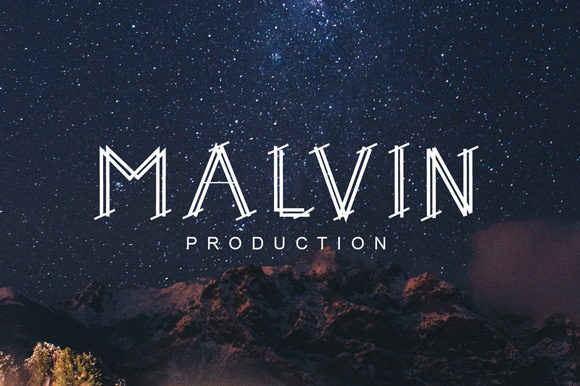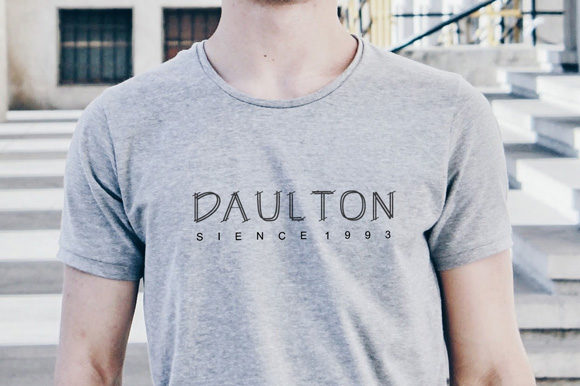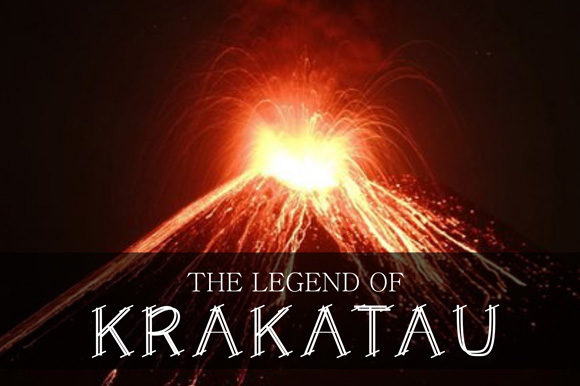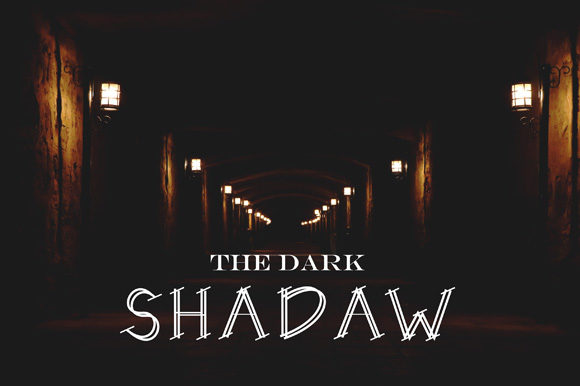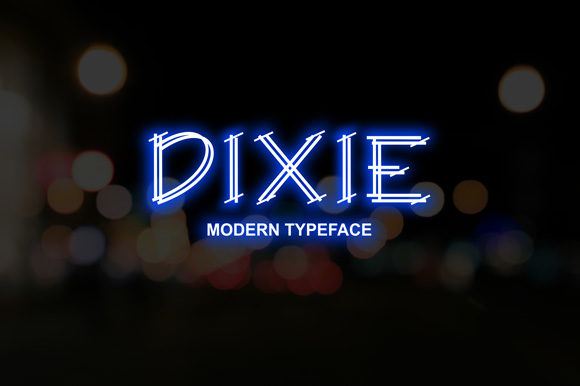
Dixie Font: Elevate Your Designs with Elegant Simplicity
In the world of typography, few fonts manage to strike a balance between simplicity and elegance. Dixie Font, however, achieves this delicate balance with remarkable finesse. Inspired by hand-lettering, Dixie is a simple, yet elegant display font that exudes a bold feel, making it an excellent choice for designers and crafters looking to add a touch of sophistication to their projects.
The Charm of Hand-Lettering Inspiration
Dixie Font draws its inspiration from the art of hand-lettering, a technique that has been cherished for centuries for its personal touch and unique character. Hand-lettering is an art form that requires skill, patience, and a keen eye for detail. By emulating this style, Dixie Font brings a level of authenticity and warmth to any design it is applied to. The font’s elegant lines and curves are reminiscent of handwritten letters, making it perfect for projects that require a personal and intimate feel.
Simple yet Elegant Design
One of the standout features of Dixie Font is its simplicity. Unlike more ornate fonts that can overwhelm a design, Dixie strikes a perfect balance between being straightforward and stylish. Its clean lines and elegant curves make it versatile enough to be used in a variety of contexts, from branding and advertising to packaging and digital media. The simplicity of Dixie Font also ensures that it remains legible even at larger sizes, making it an excellent choice for headlines and titles.
A Bold Feel for Impactful Designs
Despite its elegant appearance, Dixie Font is not afraid to make a statement. It possesses a bold feel that can add impact and drama to any design. This boldness is not overpowering but rather enhances the overall aesthetic, making it perfect for designers who want to create striking visuals. Whether you’re working on a logo, a poster, or a website header, Dixie Font can help you grab attention and leave a lasting impression.
Authentic Elegance for Various Projects
The authentic elegance of Dixie Font makes it suitable for a wide range of projects. For crafters, it can add a touch of sophistication to handmade cards, scrapbooking, and other paper crafts. Designers can use it to elevate their branding projects, create stunning advertisements, or design beautiful websites. The font’s versatility and timeless elegance ensure that it will remain a valuable asset in your design arsenal for years to come.
Tips for Using Dixie Font Effectively
- Pair it with contrasting fonts: To maximize the impact of Dixie Font, pair it with fonts that offer a stark contrast. A simple sans-serif font can create a beautiful balance with Dixie’s elegant curves.
- Experiment with sizes: Don’t be afraid to experiment with different sizes. Dixie Font’s legibility at various sizes makes it perfect for both headlines and body text.
- Use it for emphasis: Given its bold feel, Dixie Font can be used to draw attention to key messages or calls to action in your designs.
- Play with colors: While Dixie Font shines in black, don’t hesitate to experiment with different colors. Its elegant design works well with a variety of color schemes.
Dixie Font is a beautiful addition to the world of typography. Its simple yet elegant design, inspired by hand-lettering, brings a level of sophistication and authenticity to any project. With its bold feel and versatile nature, Dixie Font is an excellent choice for designers and crafters looking to elevate their designs. Whether you’re creating a brand identity, a piece of art, or a simple greeting card, Dixie Font’s authentic elegance is sure to inspire and enhance your work.